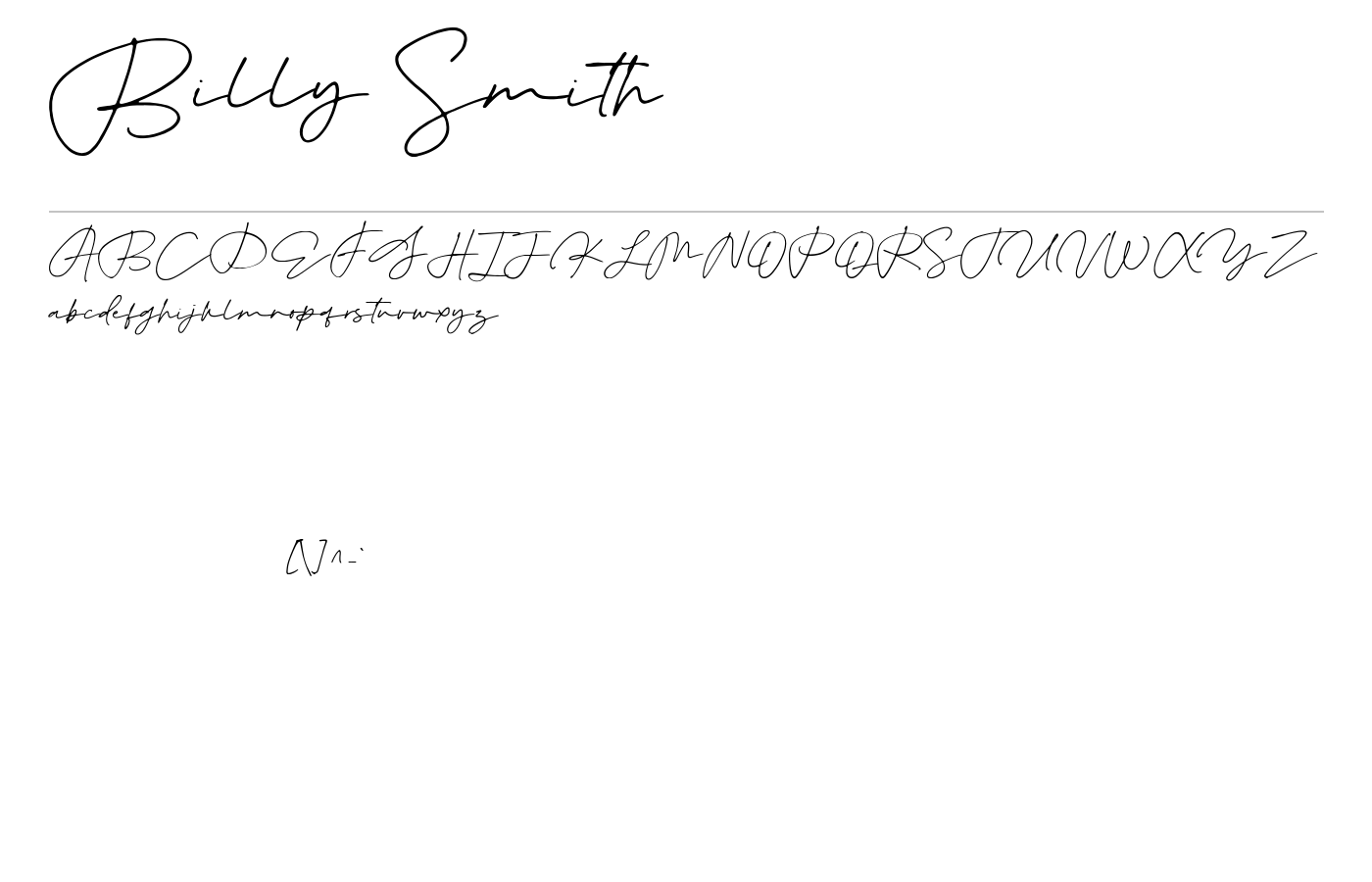
Billy Smith is a delicate, handwritten script font characterized by its elegant, flowing lines and thin strokes that give it a light, airy feel. Its casual yet refined style makes it perfect for personal branding, invitations, and creative projects where a touch of sophistication and authenticity is desired. This font works well in designs that aim to convey warmth, individuality, and a modern handwritten charm.
Billy Smith Font